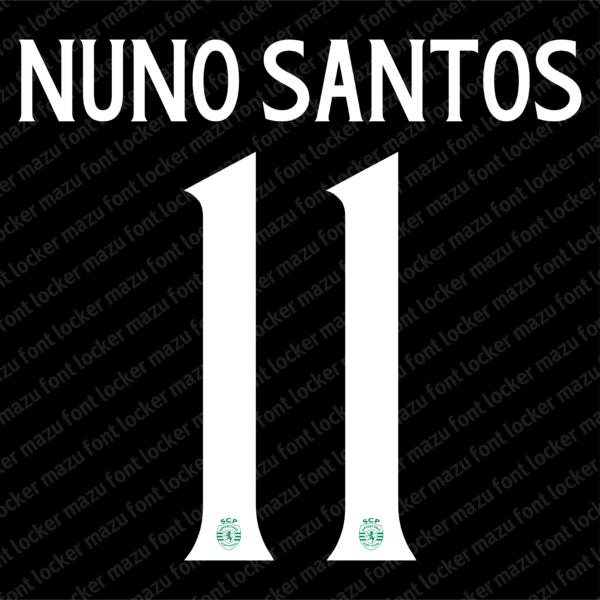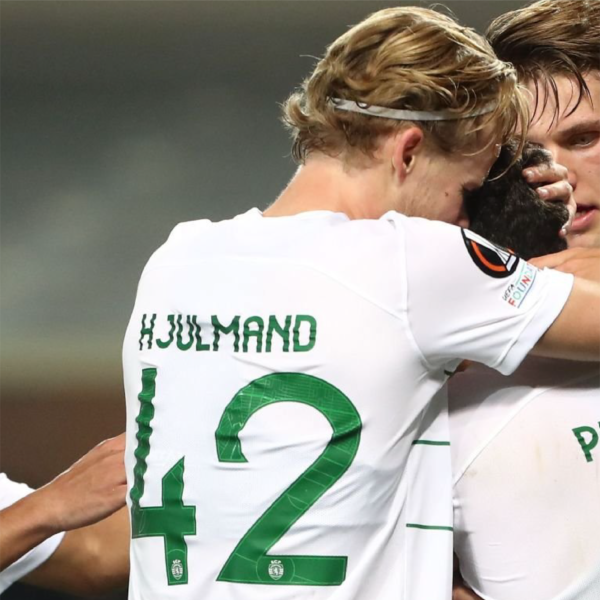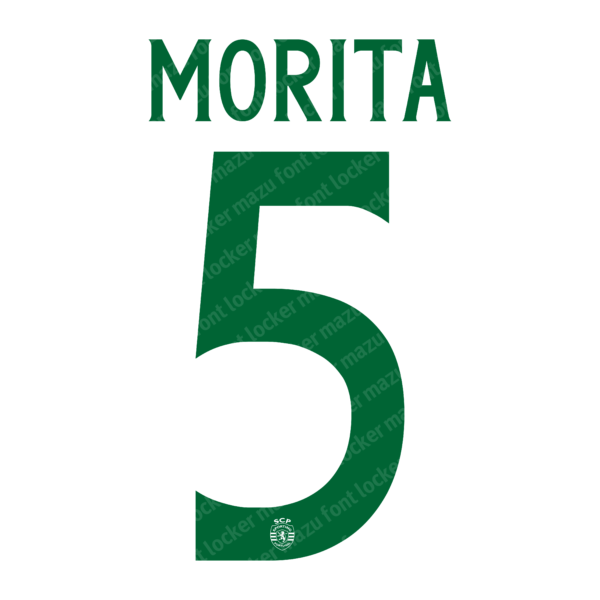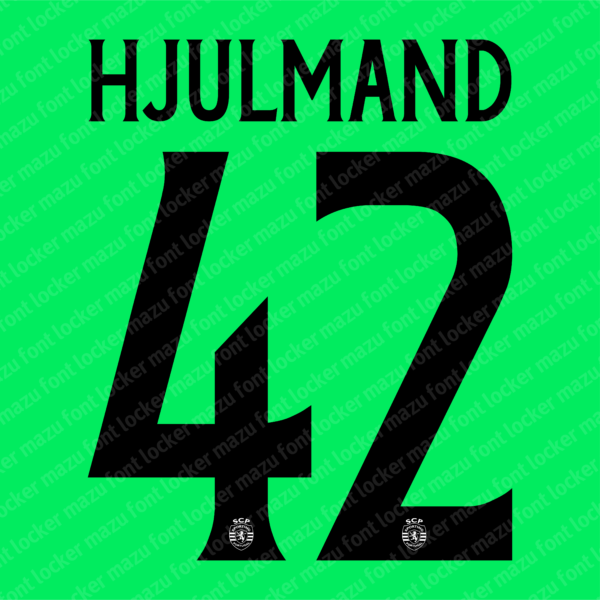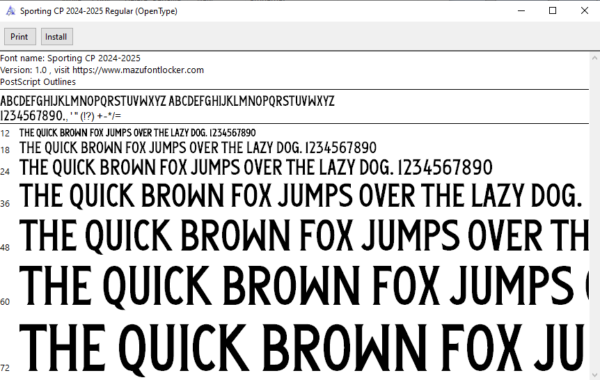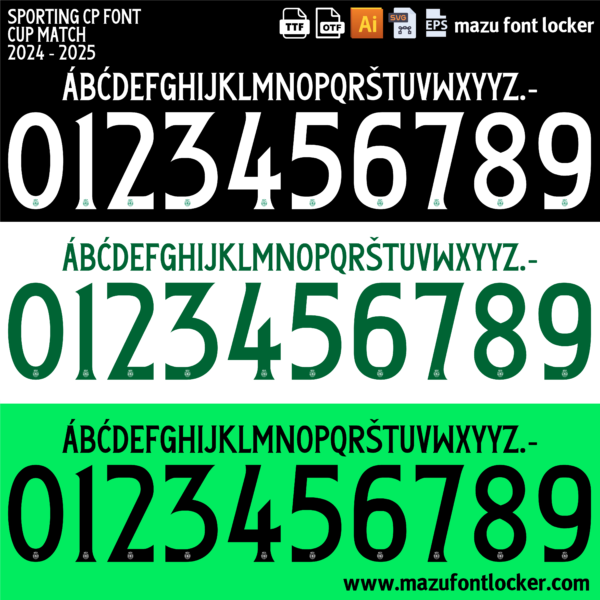
Sporting CP 2024-2025 Font Vector – Vibrant Lion Kit
Get the official Sporting CP 2024-2025 jersey look with this premium vector font set. This high-quality font is meticulously crafted to replicate the authentic lettering and numbering used by Sporting CP for the 2024-2025. Perfect for kit designers, fans, and professional sportswear customisation, it ensures a sharp, match-day finish for both digital and print projects.
Sporting CP 2024-2025 Font Vector – Authentic Jersey Lettering
Sporting CP 2024-2025 Font is a high-quality football jersey font vector created to replicate the official lettering and numbering style used during the iconic 2024-2025 Season. Perfect for designers, football fans, and jersey customisation projects, this font set delivers an authentic and professional match-day appearance.
Inspired by the original Sporting CP 2024-2025 team kit, every letter and number has been carefully recreated to ensure accurate retro styling for both digital and print projects.
• Authentic 2024-2025 Sporting CP jersey lettering style
The authentic lettering style helps recreate the classic look of the Sporting CP 2024-2025 kit with professional accuracy.
Unlike generic jersey fonts, this set is designed with a strong focus on authenticity and accuracy. Every detail is based on the original match lettering style used during the 2024-2025 season, helping designers and collectors create realistic football shirt designs.
This Sporting CP 2024-2025 font vector set is designed for authentic football jersey customization and works perfectly for retro football projects, collector designs, and professional sportswear artwork.